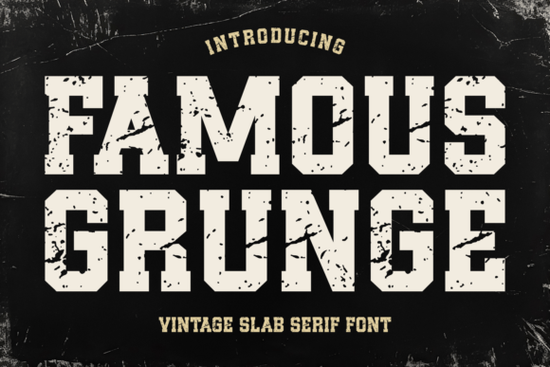
Designers, crafters, and small business owners looking for a unique typeface that captures the essence of past decades will find the “Famous Grunge” font to be a valuable addition to their toolkit. This slab serif font brings a vintage twist to modern design projects, making it ideal for logos, book covers, and branding materials. Its gritty, grunge aesthetic sets it apart from standard fonts, offering a bold and nostalgic look that resonates with creative professionals.
The “Famous Grunge” font is designed with versatility in mind. Its thick, clean letters make it perfect for quotes, greeting cards, and apparel designs. The rich, old-world style adds a distinctive edge to magazine layouts and packaging concepts, helping to elevate the visual appeal of any project. Whether you're working on a personal art piece or a commercial product, this font provides a timeless feel that stands out.
One of the standout features of the “Famous Grunge” font is its support for multilingual typography. It works well with Eastern European languages, allowing designers to create content that reaches a broader audience. This makes it a practical choice for those who want to expand their design work beyond English-speaking markets. The font’s adaptability ensures that your creative ideas can be expressed clearly and effectively in different languages.
How Does “Famous Grunge” Fit Into Modern Design Trends?
Design trends often cycle back to nostalgic styles, and the “Famous Grunge” font aligns with this pattern. Its 70s, 80s, and 90s influence gives it a retro feel that feels both familiar and fresh. This makes it an excellent choice for seasonal projects or campaigns that aim to evoke a sense of nostalgia. Whether you're designing for a music festival, a vintage-themed event, or a brand with a historical background, this font can help bring your vision to life.
For print-on-demand sellers and small businesses, the “Famous Grunge” font offers a way to stand out in a crowded market. Its distinctive look helps products catch the eye of potential customers, making it easier to differentiate your offerings. The font’s readability and strong visual presence ensure that your designs remain legible while still making a statement.
Why Choose a Slab Serif Font Like “Famous Grunge”?
Slab serif fonts are known for their bold and structured appearance, which makes them ideal for headlines, logos, and other attention-grabbing elements. The “Famous Grunge” font takes this structure and adds a layer of texture and character, giving it a more dynamic feel. This combination of strength and personality makes it a great option for designers who want to add depth to their work without sacrificing clarity.
If you're working on a project that requires a strong visual identity, the “Famous Grunge” font can help establish that presence. Its thick strokes and textured details provide a sense of weight and authenticity, making it suitable for both digital and print media. Whether you're creating a website, a poster, or a product label, this font can enhance the overall look and feel of your design.
As you experiment with the “Famous Grunge” font, consider how it can complement your existing design assets. Try pairing it with simpler fonts for contrast, or use it as a standalone element for maximum impact. Testing different applications will help you discover the full range of what this font can do.
Whether you're a seasoned designer or just starting out, the “Famous Grunge” font offers a unique way to express creativity. Its blend of vintage charm and modern functionality makes it a versatile tool for a wide range of projects. With its support for multiple languages and its ability to stand out in any design, it's a font worth adding to your collection.